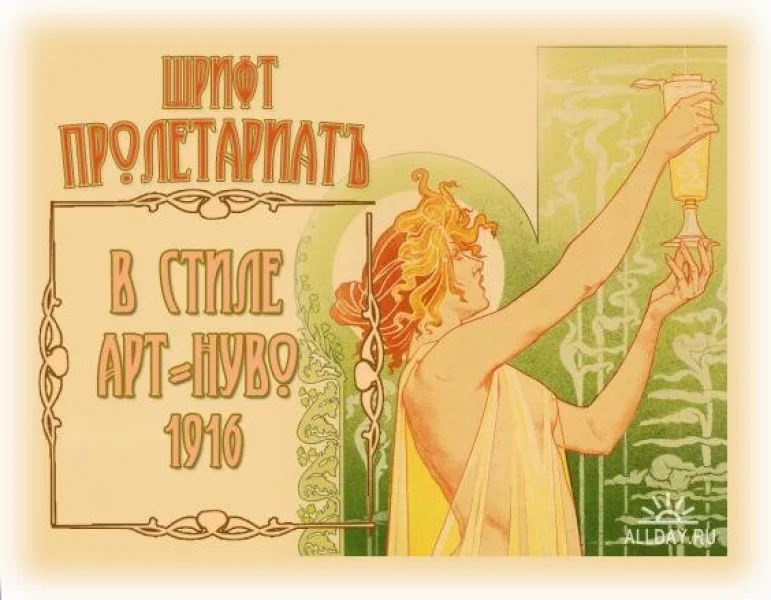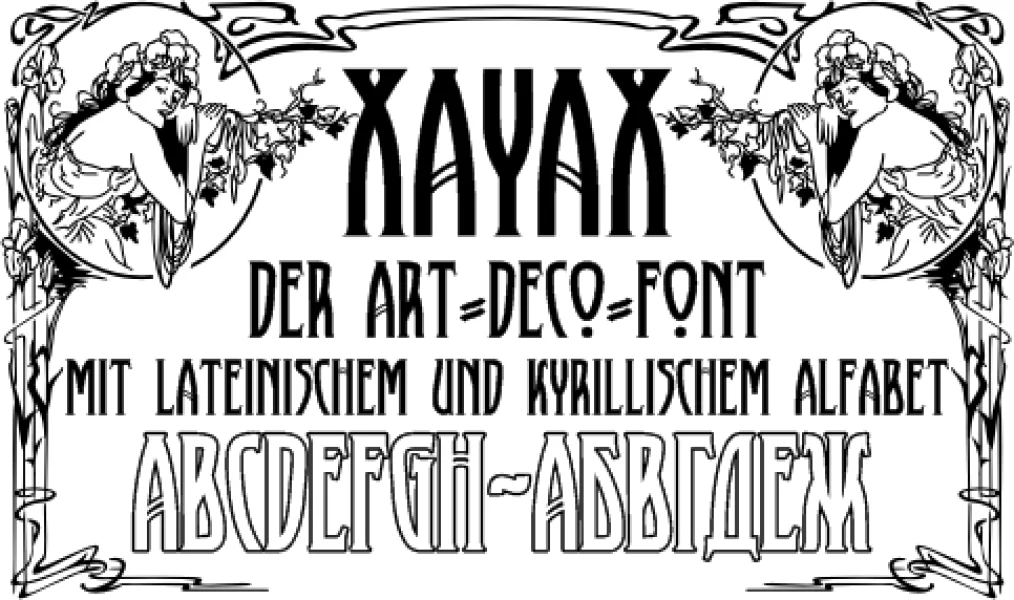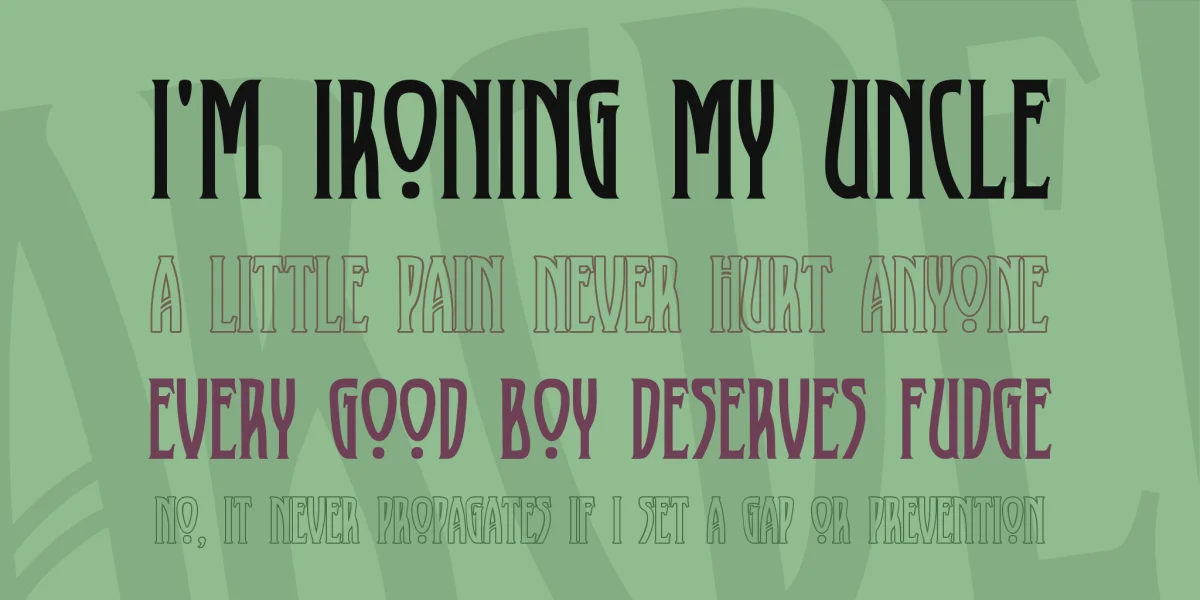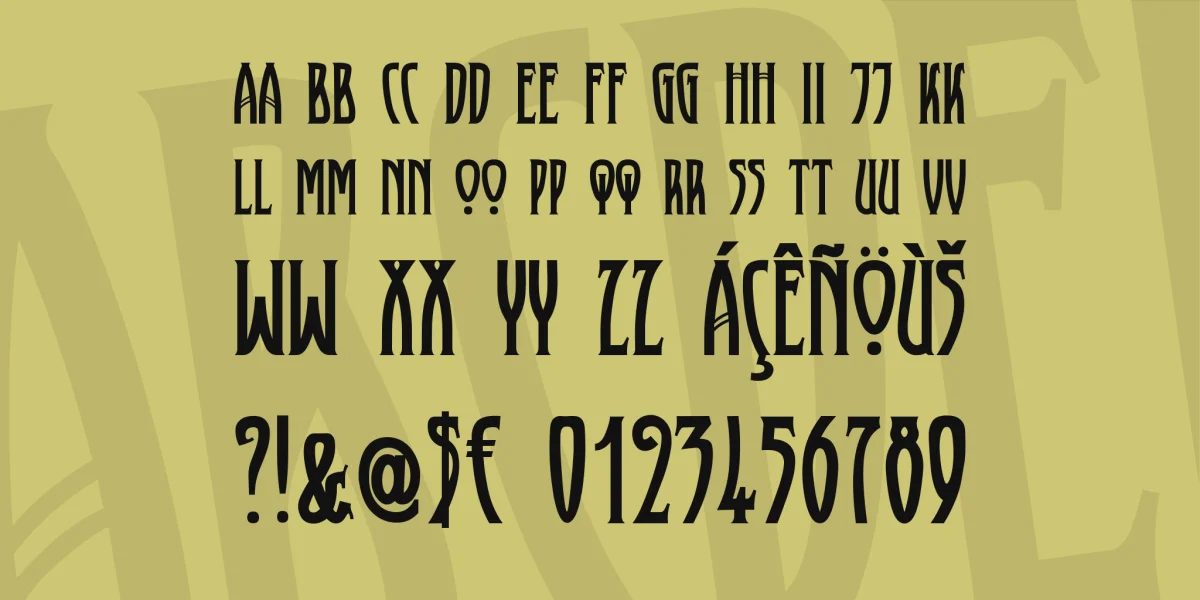
And again, two new fonts, this time in the Art Nouveau style. In the packets contains both the standard font and the outline option - both with 286 glyphs for Latin and Cyrillic ...
As you can see, just have something romantic Art Nouveau motifs. Just when you considered old movies round Art Nouveau motifs from the environment of the time oh so heal film world, the silent film era greets. A picture is worth a thousand words.